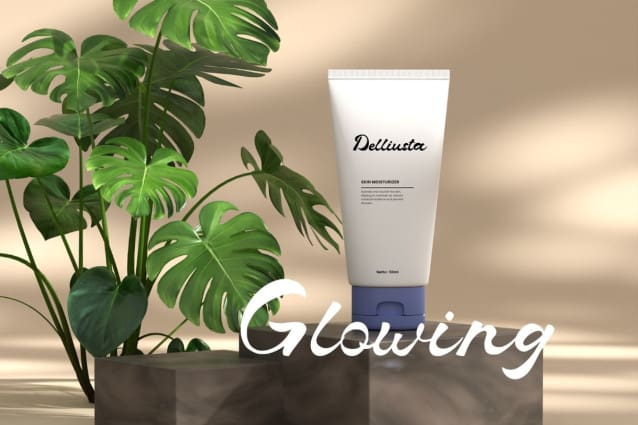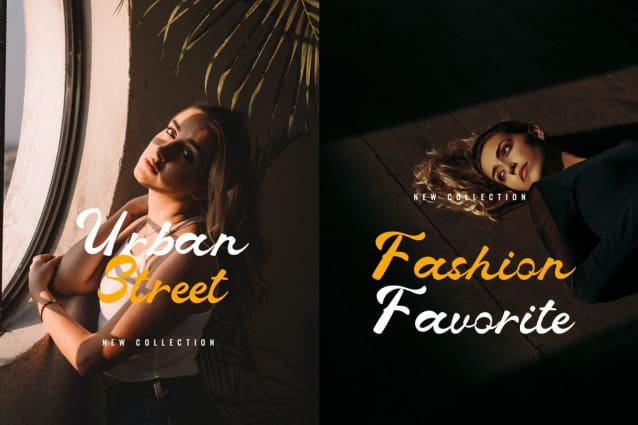
Delliusta Script Font
Delliusta Script Font is a stunning handwritten font with a fun, bol feel. It will inspire any design project with its youthful charm!